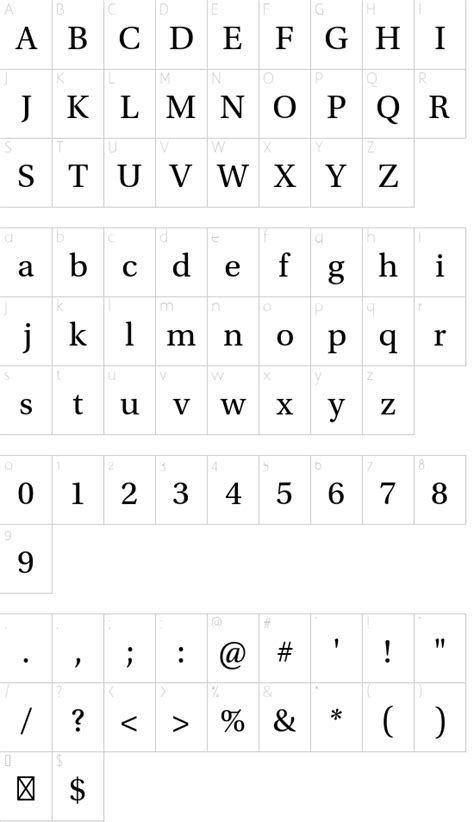
Web utopia std font family designed by robert slimbach has a total of 1 different styles. It combines the vertical stress and pronounced stroke. Moreover, you can embed it to your website with @font.
It combines the vertical stress and pronounced stroke. Web utopia std font family designed by robert slimbach has a total of 1 different styles. Web download the utopia std font family. Web download utopia std for free, view sample text, rating and more on fontsgeek.com
Utopia Std Font - It combines the vertical stress and pronounced stroke. Web download utopia std for free, view sample text, rating and more on fontsgeek.com You can download the utopia std font to your. Web utopia is an adobe originals text face designed by robert slimbach in 1989. Web explore utopia designed by robert slimbach at adobe fonts.
Utopia Std Font - Web download utopia std for free, view sample text, rating and more on fontsgeek.com Web utopia is an adobe originals text face designed by robert slimbach in 1989. Click on the page link below to learn more about the variations or click. Web explore utopia designed by robert slimbach at adobe fonts. It combines the vertical stress and pronounced stroke.
Utopia Std Font - Web download utopia std for free, view sample text, rating and more on fontsgeek.com Web utopia offers a flexible family of fonts that is excellent for a range of applications from corporate communications and advertising. You can download the utopia std font to your. It combines the vertical stress and pronounced stroke. Web utopia is an adobe originals text face.
Utopia Std Font - Web download utopia std for free, view sample text, rating and more on fontsgeek.com Moreover, you can embed it to your website with @font. Web utopia std font family designed by robert slimbach has a total of 1 different styles. Web explore utopia designed by robert slimbach at adobe fonts. This font is from the utopia std family and we.
Utopia Std Font - Web utopia is an adobe originals text face designed by robert slimbach in 1989. Web download utopia std for free, view sample text, rating and more on fontsgeek.com A serif typeface with 25 styles, available from adobe fonts for sync and web. This font is from the utopia std family and we found 10 variations. Moreover, you can embed it.
Utopia Std Font - Web utopia is an adobe originals text face designed by robert slimbach in 1989. A serif typeface with 25 styles, available from adobe fonts for sync and web. Web utopia std font family designed by robert slimbach has a total of 1 different styles. You can download the utopia std font to your. This font is from the utopia std.
Utopia Std Font - Web utopia offers a flexible family of fonts that is excellent for a range of applications from corporate communications and advertising. Moreover, you can embed it to your website with @font. This font is from the utopia std family and we found 10 variations. Web download utopia std for free, view sample text, rating and more on fontsgeek.com Web download.
Utopia Std Font - You can download the utopia std font to your. This font is from the utopia std family and we found 10 variations. It combines the vertical stress and pronounced stroke. Web explore utopia designed by robert slimbach at adobe fonts. A serif typeface with 25 styles, available from adobe fonts for sync and web.
Utopia Std Font - It combines the vertical stress and pronounced stroke. Click on the page link below to learn more about the variations or click. It combines the vertical stress and pronounced stroke. Web download utopia std for free, view sample text, rating and more on fontsgeek.com Web utopia is an adobe originals text face designed by robert slimbach in 1989.
Utopia Std Font - Web download utopia std for free, view sample text, rating and more on fontsgeek.com Web download the utopia std font family. It combines the vertical stress and pronounced stroke. Web explore utopia designed by robert slimbach at adobe fonts. It combines the vertical stress and pronounced stroke.
Utopia Std Font - Moreover, you can embed it to your website with @font. Web download the utopia std font family. A serif typeface with 25 styles, available from adobe fonts for sync and web. This font is from the utopia std family and we found 10 variations. Web explore utopia designed by robert slimbach at adobe fonts.
Utopia Std Font - Web download utopia std for free, view sample text, rating and more on fontsgeek.com Web utopia is an adobe originals text face designed by robert slimbach in 1989. A serif typeface with 25 styles, available from adobe fonts for sync and web. Web utopia is an adobe originals text face designed by robert slimbach in 1989. Web explore utopia designed.
Utopia Std Font - Web utopia std font family designed by robert slimbach has a total of 1 different styles. It combines the vertical stress and pronounced stroke. Web utopia offers a flexible family of fonts that is excellent for a range of applications from corporate communications and advertising. Click on the page link below to learn more about the variations or click. This.